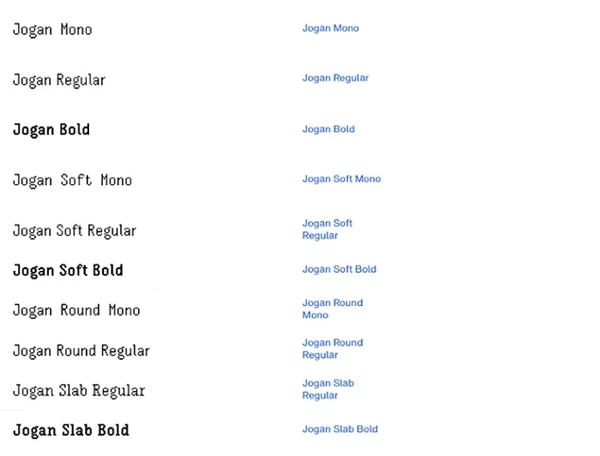
The Jogan Font Family is a pixel-based typeface inspired by early video game graphics.
Unconventionally, Wibowo opted for a smaller width, deviating from typical pixel-style fonts.
The font family comprises four subfamilies: Jogan (regular and bold, including monospace), Jogan Soft (regular, bold, and monospace), Jogan Round (regular and monospace), and Jogan Slab (regular and bold). Each style encompasses over 280 glyphs, accommodating various Western European languages.